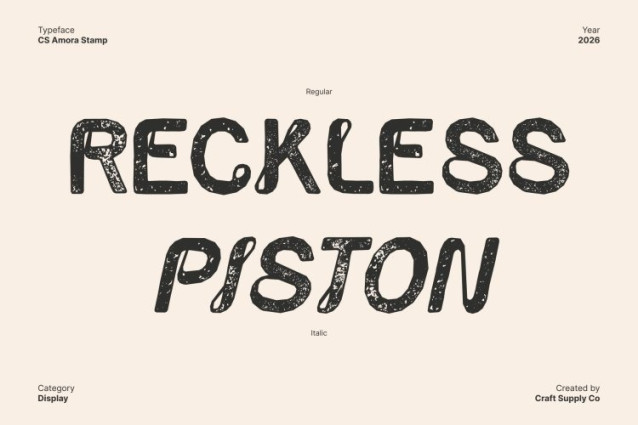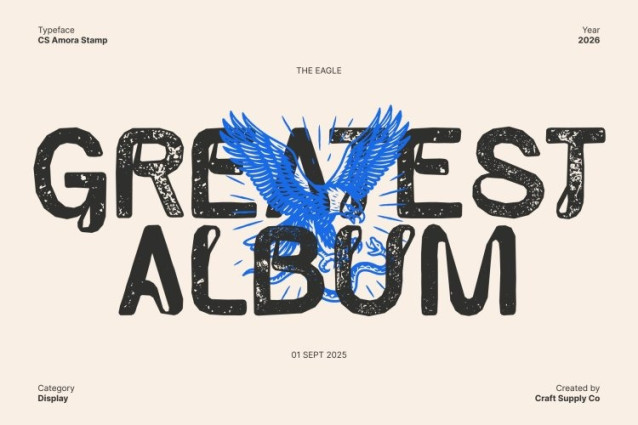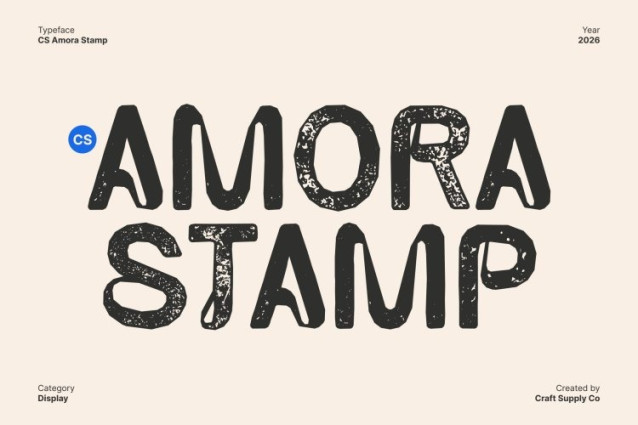
CS Amora Stamp Font
CS Amora Stamp Font This is a refined sans serif font infused with the flowing, organic beauty of Art Nouveau design. Each letterform combines clean modern structure with graceful, decorative details, creating a typeface that is both elegant and visually captivating. Its harmonious curves and subtle artistic flourishes evoke a sense of luxury and sophistication.
Timeless Beauty and Sophisticated Style
Perfect for projects that demand elegance and refinement, this font lends a classic yet fresh aesthetic. Its graceful forms enhance branding, invitations, editorial layouts, and creative designs, allowing your work to stand out with a touch of artistic charm.
Flowing Forms with Distinctive Character
The font’s intricate details and smooth curves provide a sense of movement and sophistication. This font balances readability with decorative artistry, ensuring that every design feels polished, stylish, and thoughtfully crafted.
Ideal for Luxury, Art, and Creative Projects
This is perfect for premium branding, boutique identities, wedding stationery, lifestyle visuals, and editorial design. Its Art Nouveau inspiration gives your designs a timeless appeal, adding elegance, distinction, and visual harmony to any creative project.